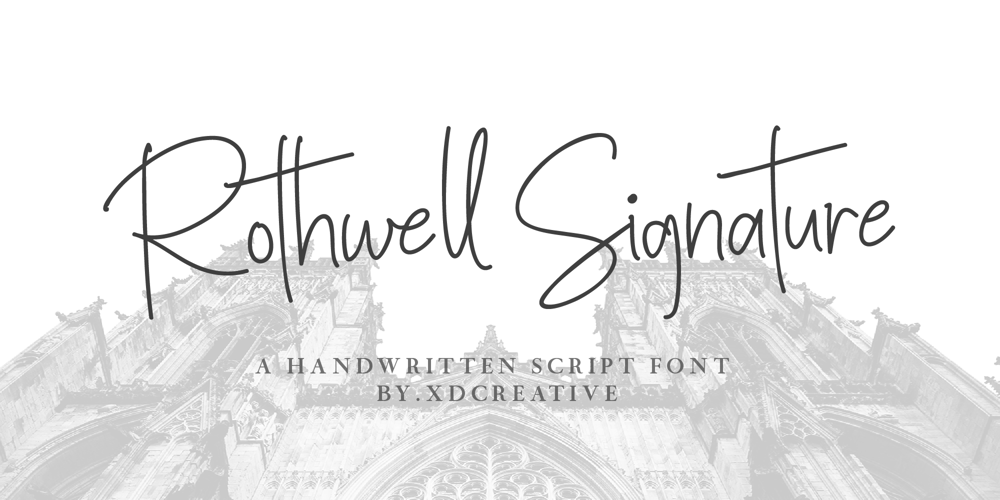
Rothwell Signature Font Family was designed by Faldy Kudo and published by XdCreative. Rothwell Signature contains 1 styles and family package options. Experience the beauty of “Rothwell Signature,” a monoline, organically hand-written script font. With its complete A-Z, and complete set of alternates from A-Z, including both uppercase and lowercase, this font allows you to add a unique and personalized touch to your designs. Additionally, “Rothwell Signature” offers an extensive selection of ligatures, enhancing the fluidity and elegance of your typography. Elevate your projects with this versatile and stylish script font.